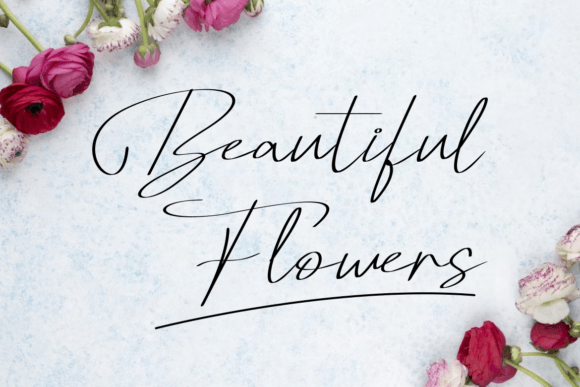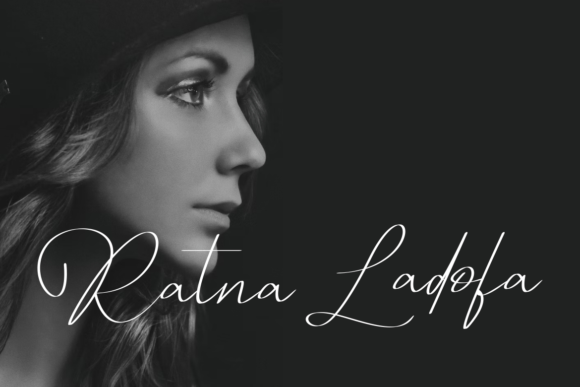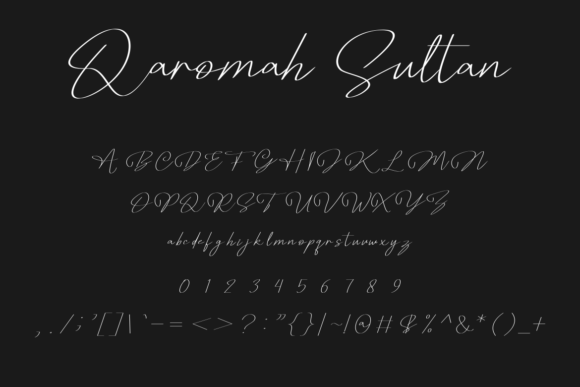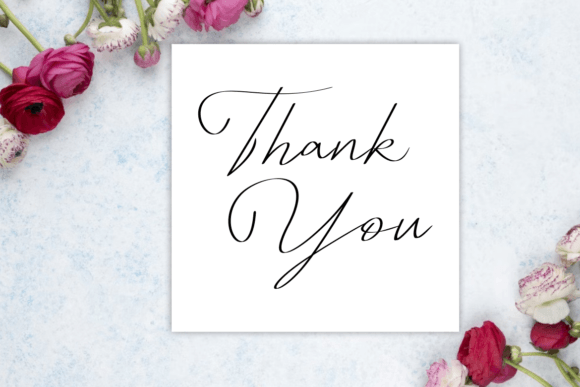
Introduction to Qaromahsultan Font
Have you ever stumbled upon a font that makes your design project shine like a work of art? For designers, finding that perfect font can be a game-changer. It’s the moment when creativity flows, and ideas start to take shape. For those who’ve been searching for a font that exudes modernity and authenticity, we’re excited to introduce you to the Qaromahsultan Font.
| 👤 Author | kalingga.albert |
This high-quality script font is a design resource that’s sure to elevate your creative project. Whether you’re working on a logo, t-shirt printing, or esports branding, Qaromahsultan Font is an excellent choice. Its versatility and sleek design make it perfect for a wide range of contexts, from a transparent background to a bold statement.
Key Features of Qaromahsultan Font
- High-quality design resource suitable for various creative projects, including graphic design, digital art, and typography.
- Unique and elegant script font with a transparent background, perfect for adding a touch of sophistication to any design project.
- Perfect for designers looking for a unique and high-quality font to elevate their creative project, whether it’s a logo, poster, or digital artwork.
Honest Review: Qaromahsultan Font
I recently had the chance to work with the Qaromahsultan Font, and I must say, it’s been an interesting experience. As a designer, I’m always on the lookout for high-quality design resources that can elevate my creative projects. The Qaromahsultan Font definitely delivers in terms of aesthetic appeal.
Here are some of the things that I think work well with this font:
- ✨ Unique and exotic design: The Qaromahsultan Font has a distinct, Middle Eastern-inspired look that can add a touch of elegance to any project.
- ✨ High quality: The font is crisp and clear, making it perfect for both digital and print projects.
- ⚠️ Limited customization options: While the font looks great out of the box, I found it difficult to customize it to fit my specific design needs.
- ⚠️ No transparent background option: This might be a deal-breaker for designers who want to use the font on a transparent background.
Overall, I think the Qaromahsultan Font is a solid addition to any designer’s toolkit. While it may have some limitations, its unique design and high quality make it a great choice for creative projects. With a little creativity and experimentation, I’m sure designers can get the most out of this font.
Tips for Getting the Most Out of Qaromahsultan Font
Experiment with different font sizes, colors, and combinations to create visually appealing designs. Use the font’s unique features, such as its high-quality design and transparent background capabilities, to enhance your creative project.
The Qaromahsultan Font is ideal for creative projects, including graphic design, typography, and visual identity. Use this font for logos, branding materials, and other design elements that require a unique touch.